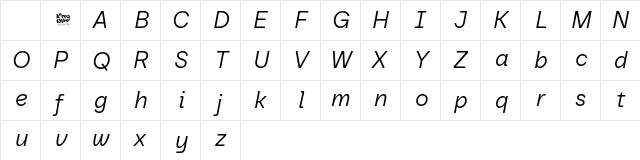
Baru Sans Demo Light is a composed and adaptable typeface that performs quietly and consistently across a wide range of design contexts. The slanted form adds forward momentum and visual energy. Its slender proportions lend an understated elegance to any composition.
Pro Tip: Use Baru Sans Demo Light for emphasis, pull quotes, and subheadings where its slanted energy can add rhythm to the layout.